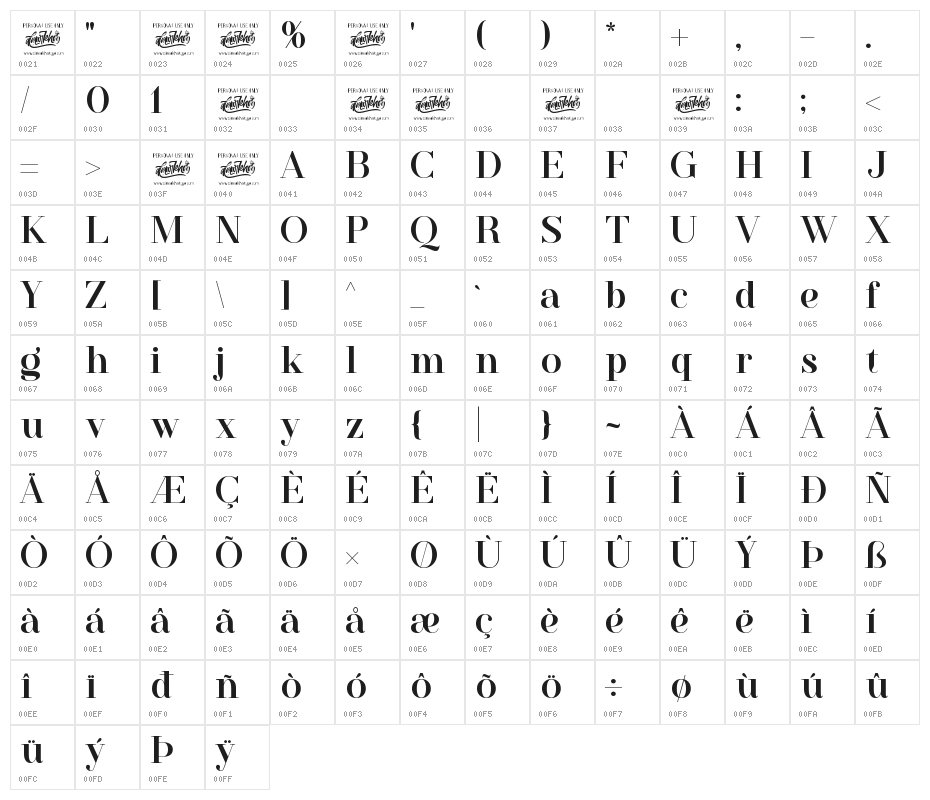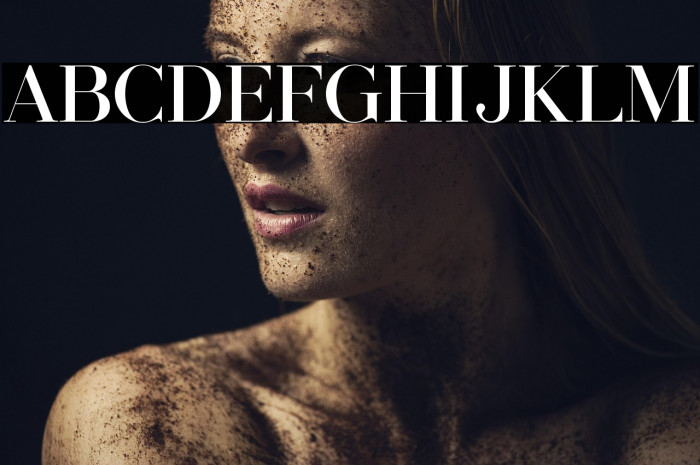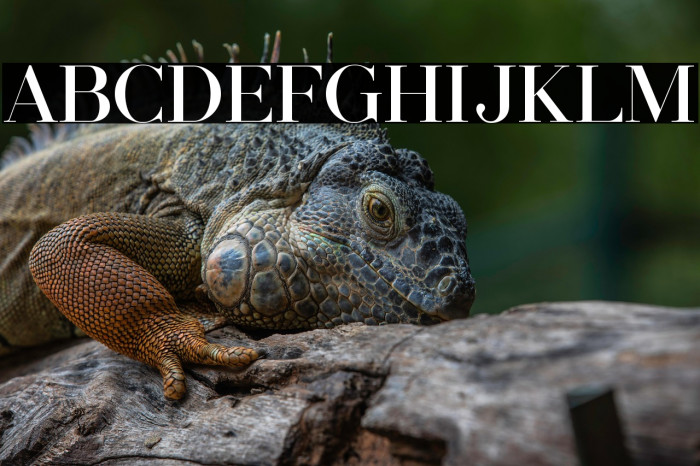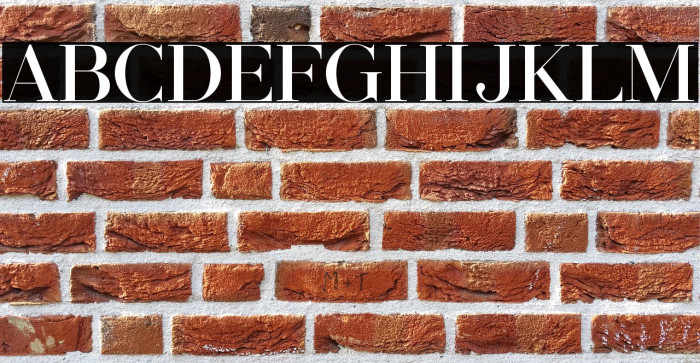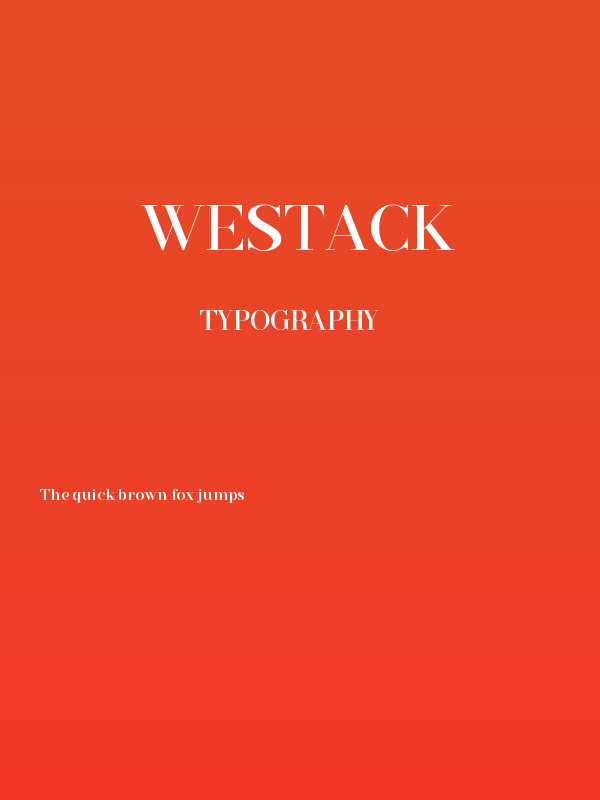
Westack Font
Westack Description
This font exhibits a classic serif style with a modern twist, characterized by its elegant and refined letterforms. The uppercase letters are tall and sophisticated, with sharp serifs that add a touch of formality. The lowercase letters maintain a consistent style, offering a harmonious blend of traditional and contemporary design elements. The numerals are bold and clear, ensuring readability, while the special characters are designed with the same attention to detail, making them suitable for a variety of uses. The overall appearance is both timeless and versatile, making it an excellent choice for projects that require a touch of elegance and professionalism.
| Proposed Projects | Ideal for editorial design, branding, invitations, and formal documents. |